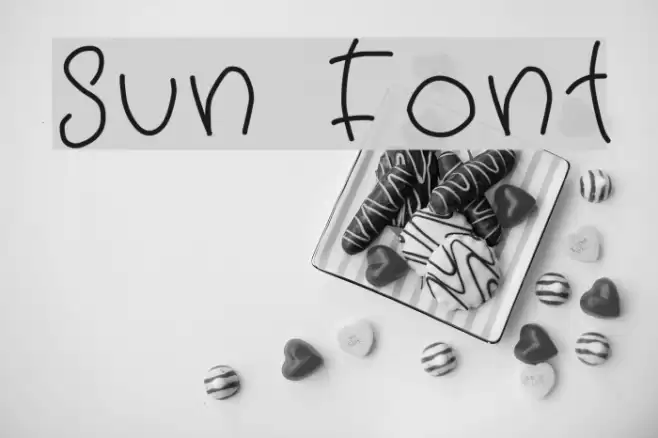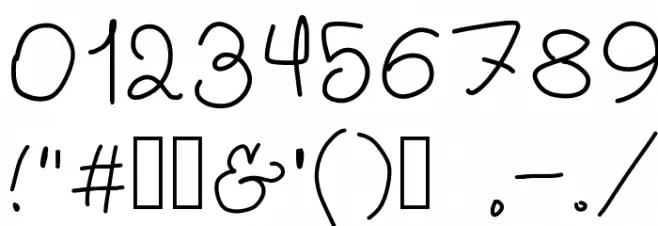
Sun Font
Sun Description
This playful and whimsical font features a handwritten style with a casual, flowing appearance. The characters are rounded and slightly irregular, giving them a friendly and approachable feel. The uppercase letters maintain a consistent height, while the lowercase letters exhibit a charming variety in their ascenders and descenders. Numbers and special characters are crafted with the same playful touch, ensuring a cohesive look throughout. The font's overall design is light-hearted and perfect for projects that require a personal, informal touch.
A playful, handwritten font with a casual and whimsical style from Uncategorized fonts.
- Proposed Projects: Ideal for greeting cards, children's books, playful branding, and informal invitations.
- Overall Style: Casual
- Use Case: Headlines, Logos, Informal text